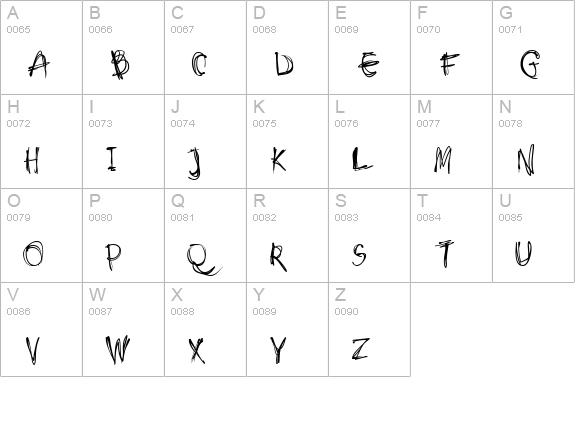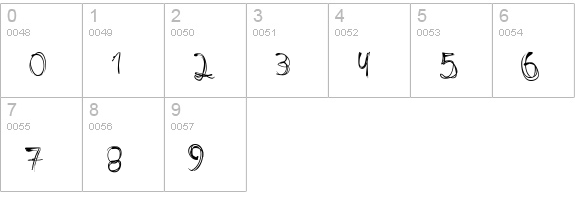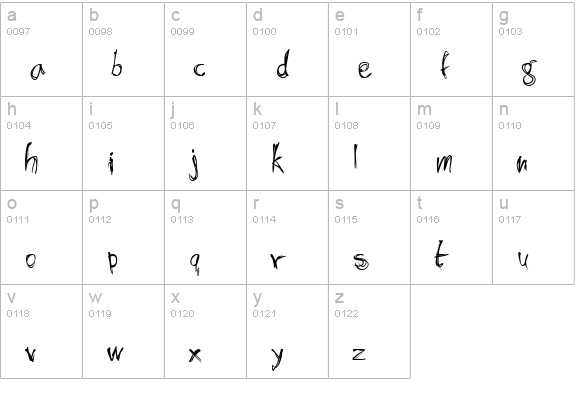
Shockheaded Font Details
Introducing Shockheaded, a mesmerizing and captivating font that will leave you spellbound. With its unique and edgy design, Shockheaded is perfect for making a bold statement in your designs. This font features strong and dramatic letterforms that exude a sense of power and intensity. Its sharp angles and intricate details give it a distinct and unforgettable appearance. Whether you're designing a logo, a poster, or a website, Shockheaded will grab attention and make a lasting impression. But what sets Shockheaded apart from other fonts is that it is not only visually stunning, but it is also completely free! Yes, you read that right. You can freely download Shockheaded at FontsMarket.com, without having to spend a dime. This makes it an incredibly valuable resource for designers, students, and anyone who wants to add a touch of creativity to their projects without breaking the bank. Imagine the possibilities with Shockheaded. Let your imagination run wild as you explore its versatile nature. Use it to create eye-catching headlines, add a touch of elegance to your invitations, or bring a sense of excitement to your social media posts. The sky's the limit when you have Shockheaded at your disposal. So don't wait any longer. Head over to FontsMarket.com and get your hands on Shockheaded today. Experience the thrill of this extraordinary font and let it elevate your designs to new heights. With Shockheaded, you'll never settle for ordinary again.